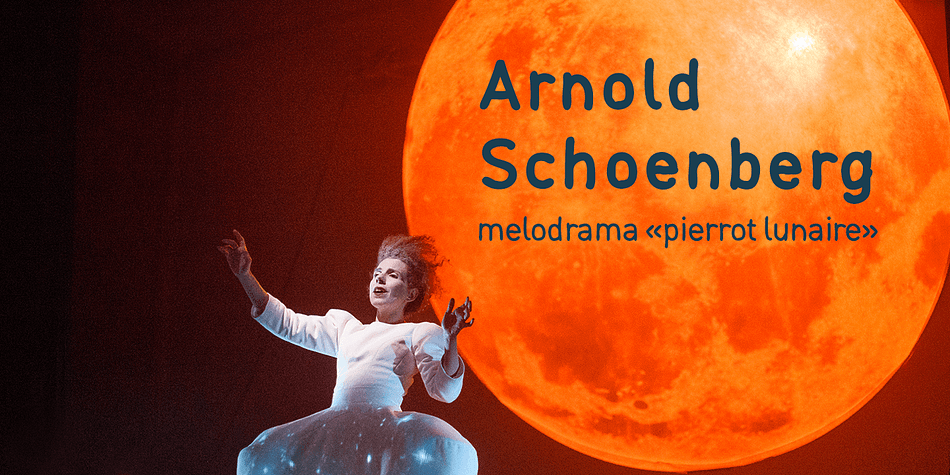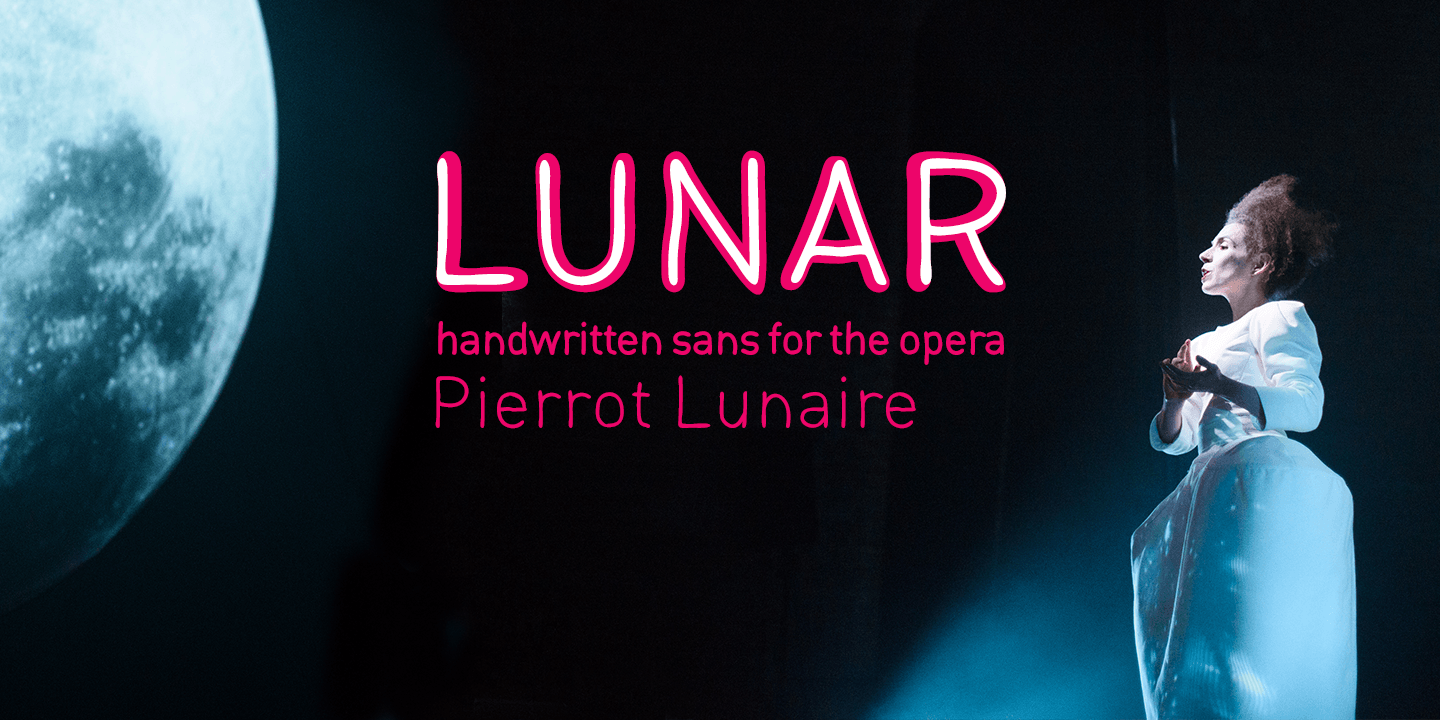
Designed by Alex Etewut, Lunar Piero is a hand drawn font family. This typeface has three styles and was published by Etewut.
Lunar is a handwritten sans serif typeface that was created for the opera Pierrot Lunaire during Diaghilev festival 2018 in Perm. There are 3 fonts in the family of LUNAR: light, regular and bold. It supports all EUROPEAN languages, basic CYRILLIC and GREECE language. It’s enough to make sensation!